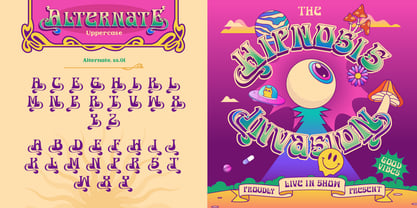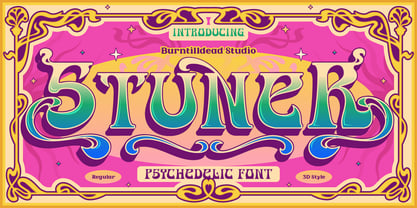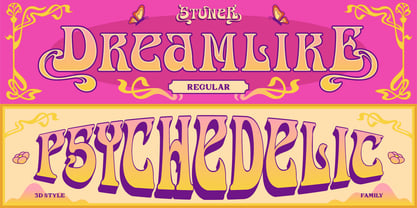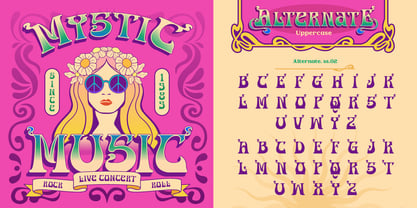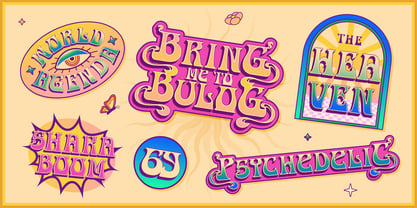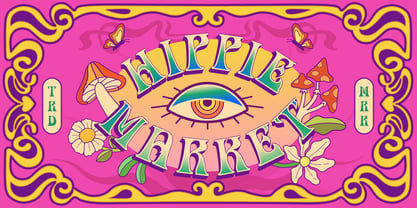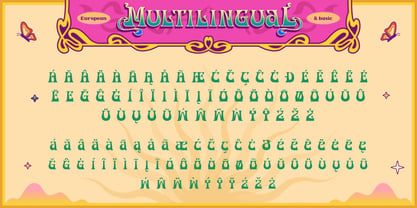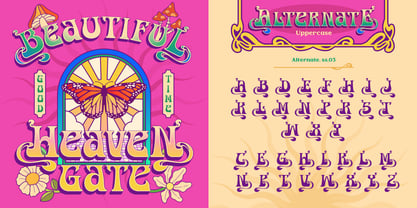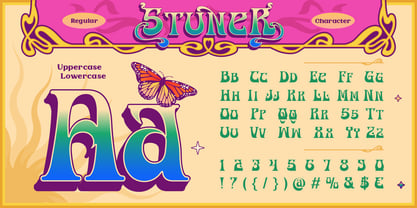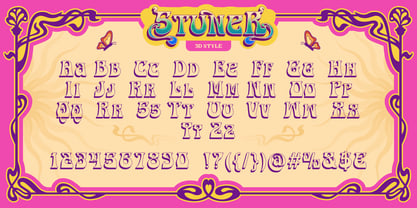
Stuner
La familia tipográfica Stuner fue diseñada por Eric Kurniawan y publicada por Burntilldead. Stuner contiene 2 estilos y opciones de paquete familiar. Más información sobre esta familia
Proudly present, Stuner, a playful, psychedelic font that blends 60s-70s retro energy with a contemporary edge. Available in 2 styles: Regular & 3D. Its asymmetrical shapes give it a handmade, vintage feel, while the 3D style makes the letters look like they are getting high off the page with trippy dimensional effect.
Ideal for:
• Concert/festival posters
• Indie album covers
• Merchandise (tees, stickers)
• Sci-fi/fantasy movie titles
• Social media quote graphics
Let Stuner turn your designs into a trippy visual experience!
Features:
• A - Z set (Uppercase & Lowercase)
• Number
• Punctuation
• Alternates
• Multilingual